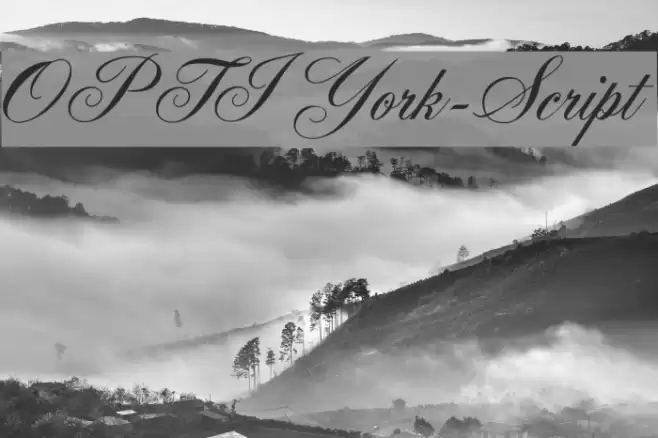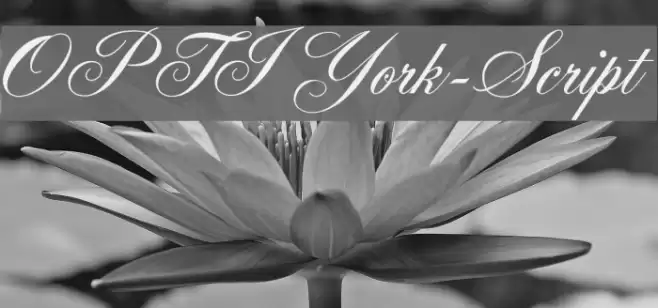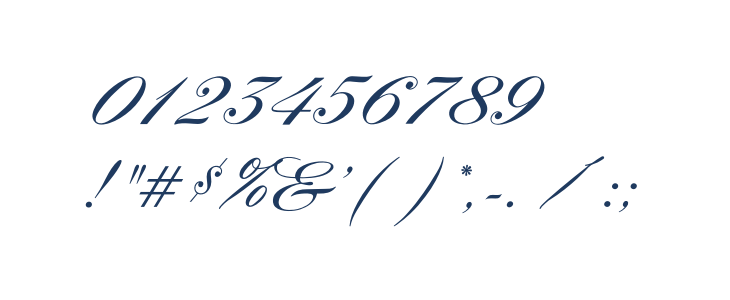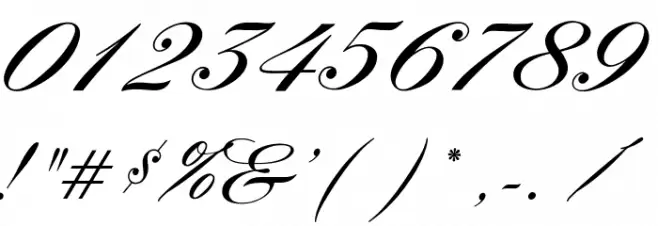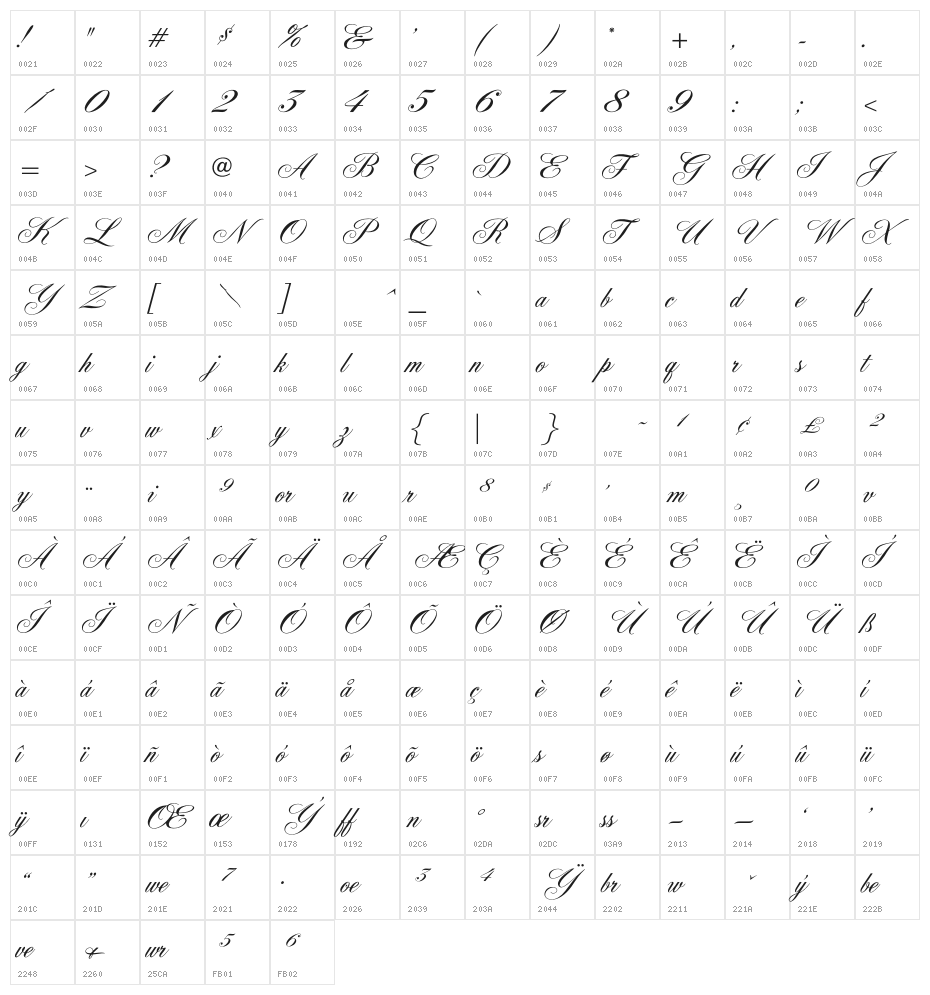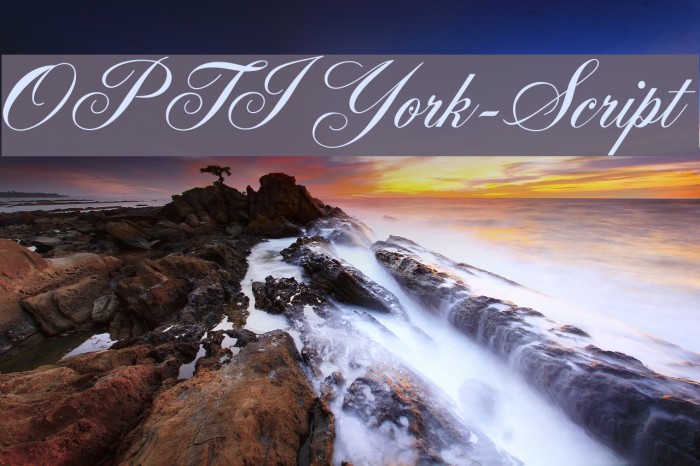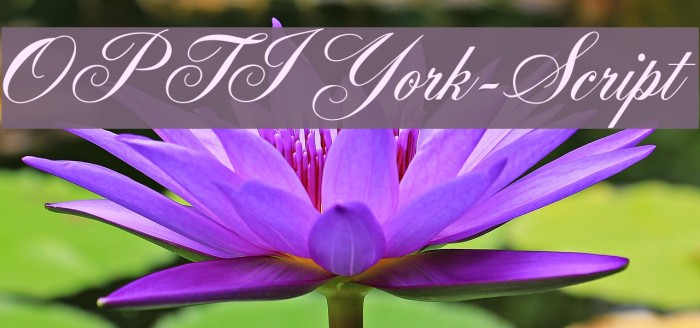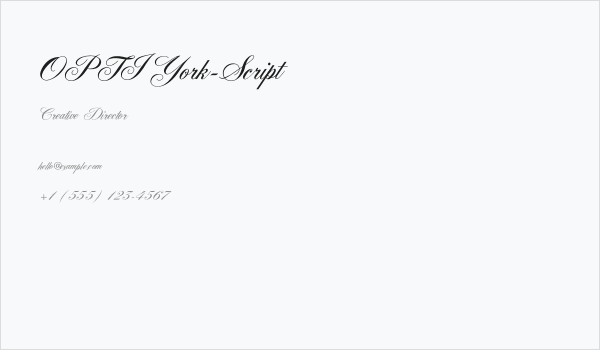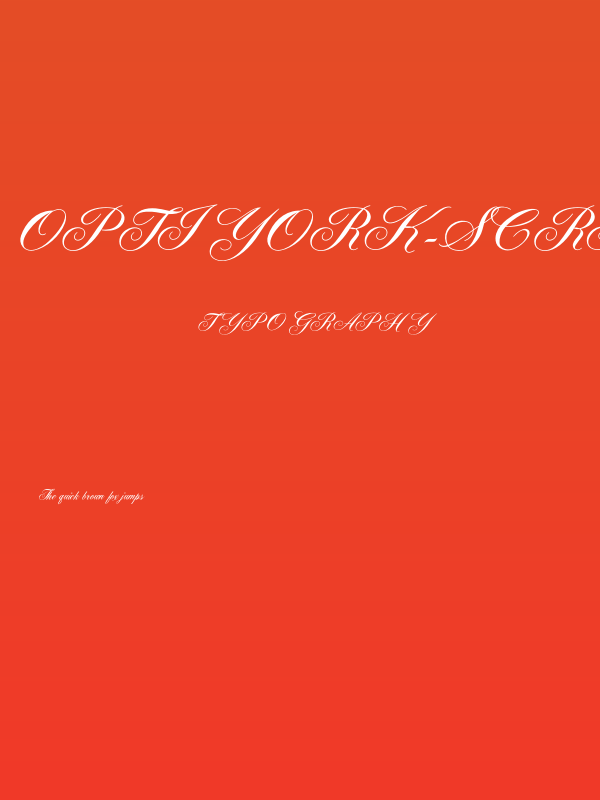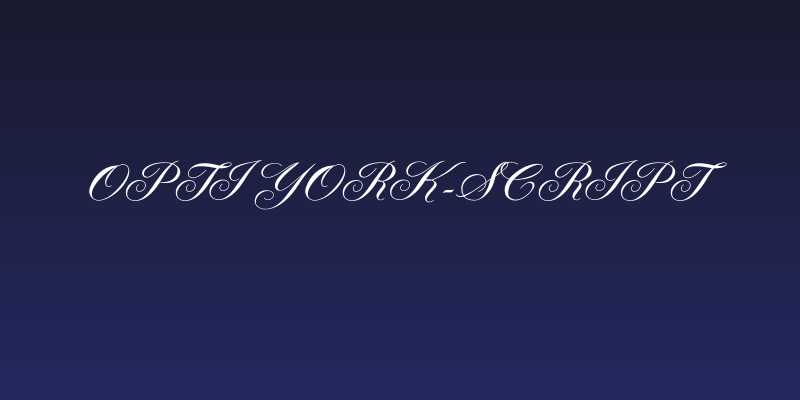
OPTIYork-Script Font
OPTIYork-Script Description
This elegant script font features flowing, cursive letterforms that exude sophistication and grace. The uppercase letters are ornate, with intricate loops and flourishes that add a touch of luxury. The lowercase letters maintain a smooth, connected style, making it ideal for formal invitations or branding that requires a touch of elegance. The numerals are consistent with the script style, offering a seamless integration with the alphabet. Special characters are thoughtfully designed to complement the overall aesthetic, ensuring versatility in various design contexts.
An elegant script font with flowing, cursive letterforms and ornate details from Uncategorized fonts.
- Proposed Projects: Ideal for wedding invitations, luxury branding, elegant stationery, and high-end product packaging.
- Overall Style: Elegant
- Use Case: Headlines, Invitations, Branding